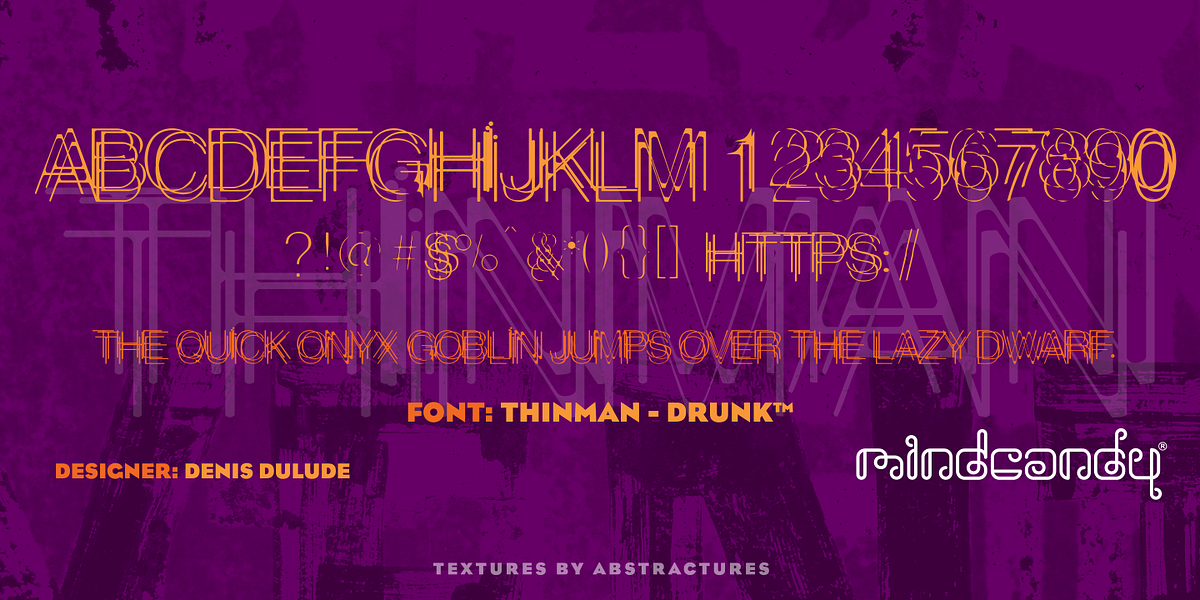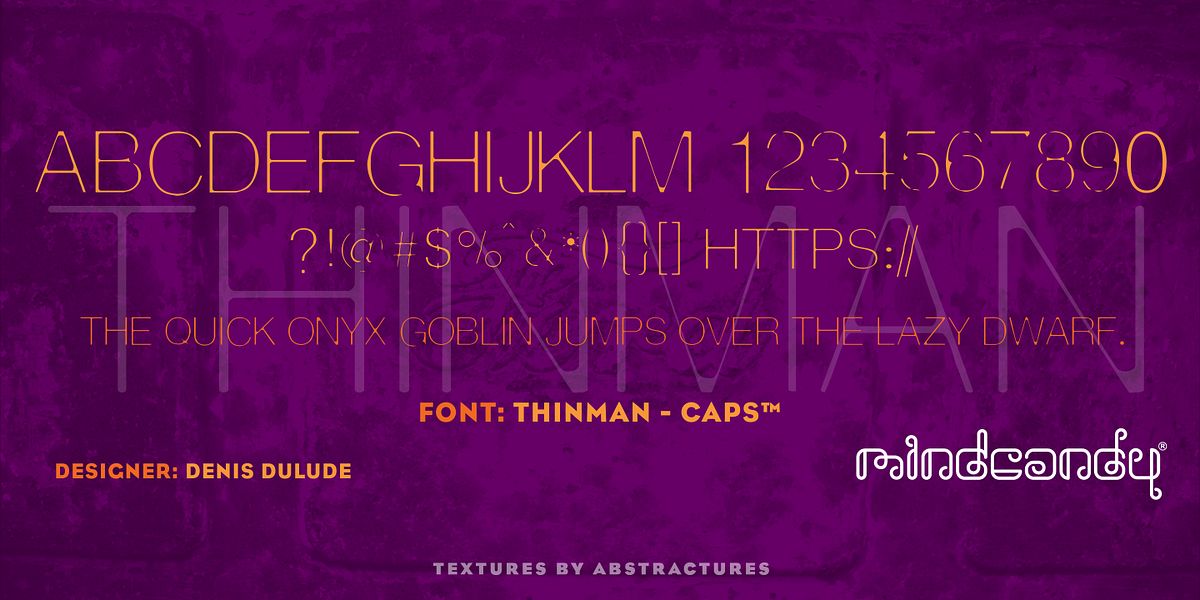
ThinMan™
This display font is characterized by its bold, all-caps design and a distinctive multilinear style. The crashed aesthetic adds a unique industrial feel, making it suitable for headlines, posters, and branding projects seeking an unconventional look.